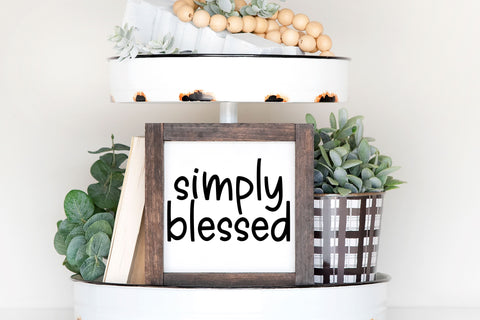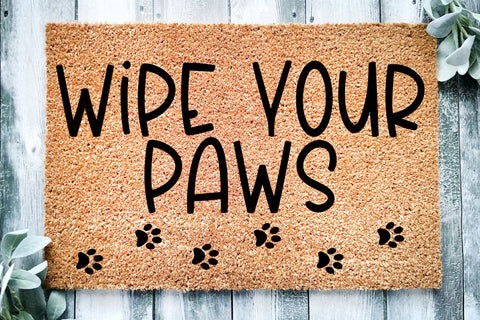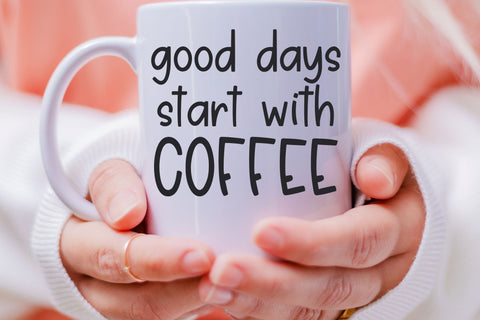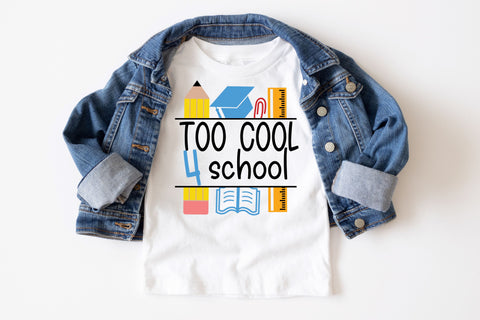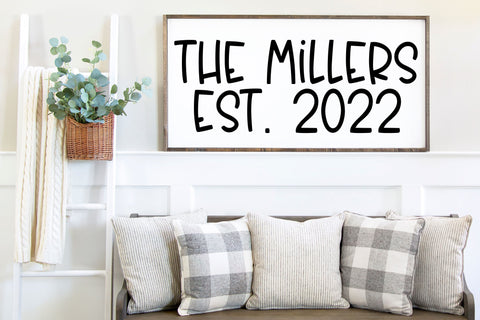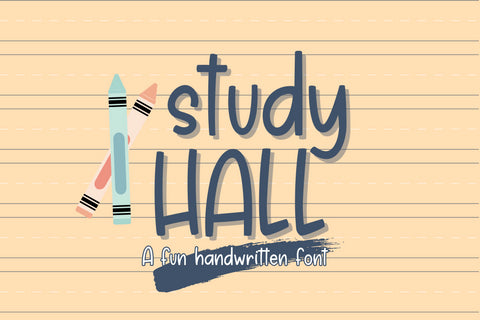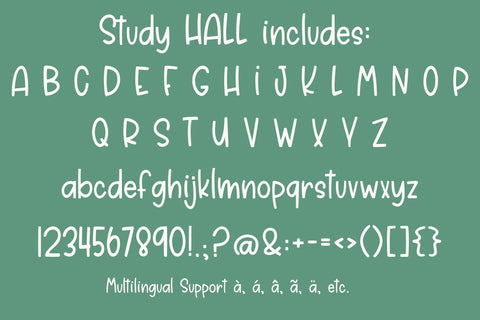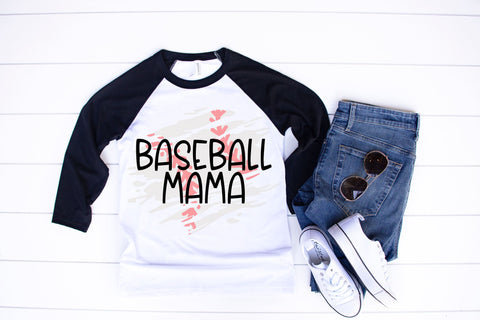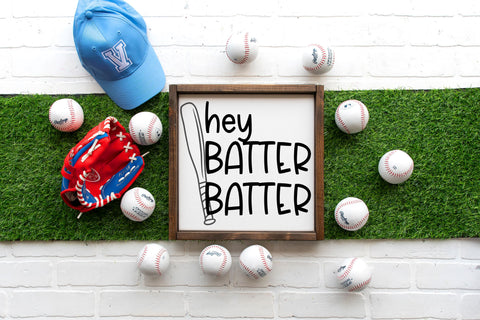
Study Hall, A Fun Handwritten Font
Introducing Study Hall, handwritten font for cricut - a charming and cute addition to your creative projects! This energetic handwriting font is perfect for all your Cricut designs, making it a must-have for craft enthusiasts. With its playful and fun handwriting style, it adds a touch of whimsy and personality to any project. Whether you're crafting cards, scrapbooking, or designing SVG files, this font will bring your creations to life. Get ready to impress with our amazing Cricut font collection and unlock endless possibilities for your artistic endeavors!